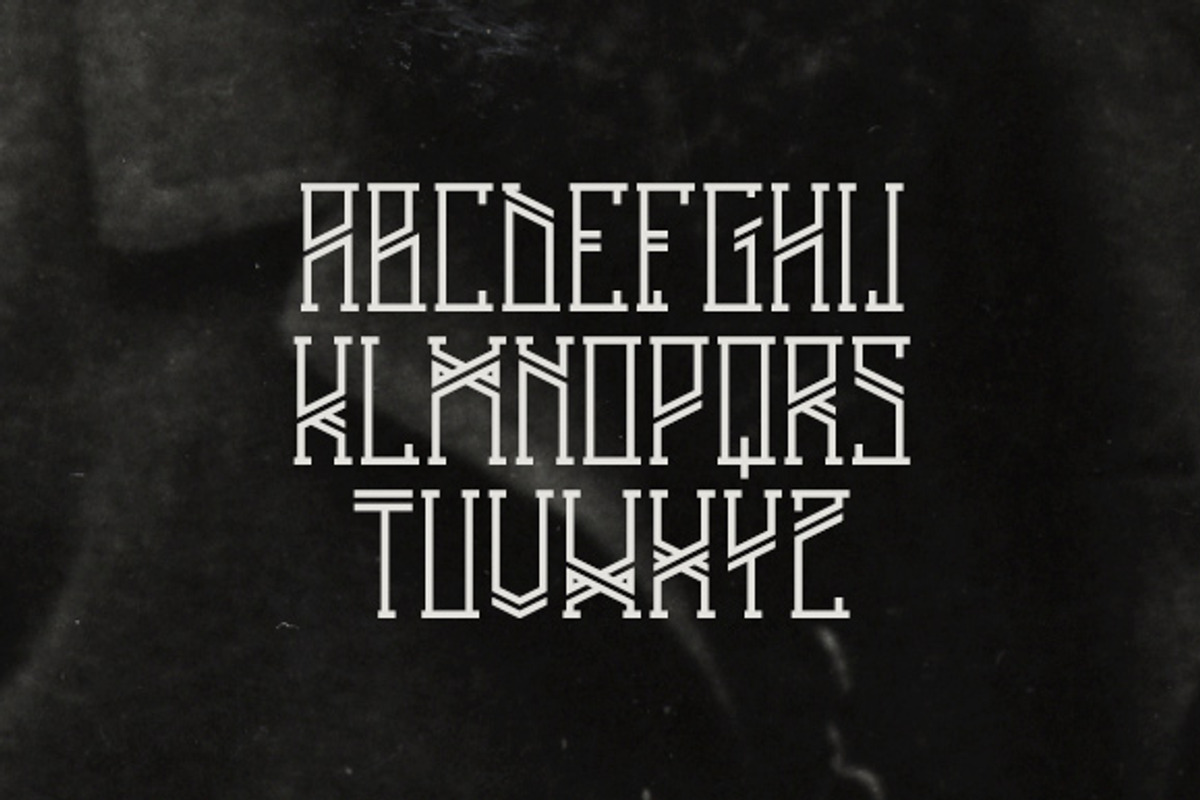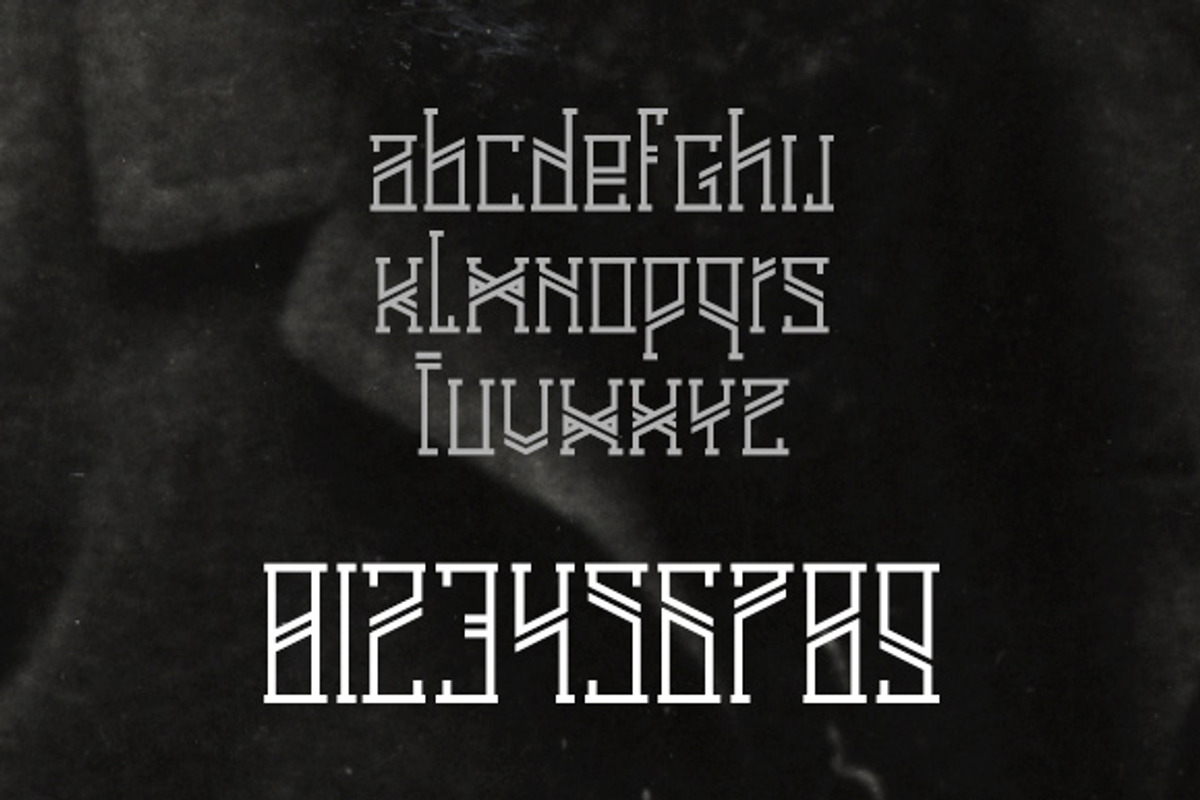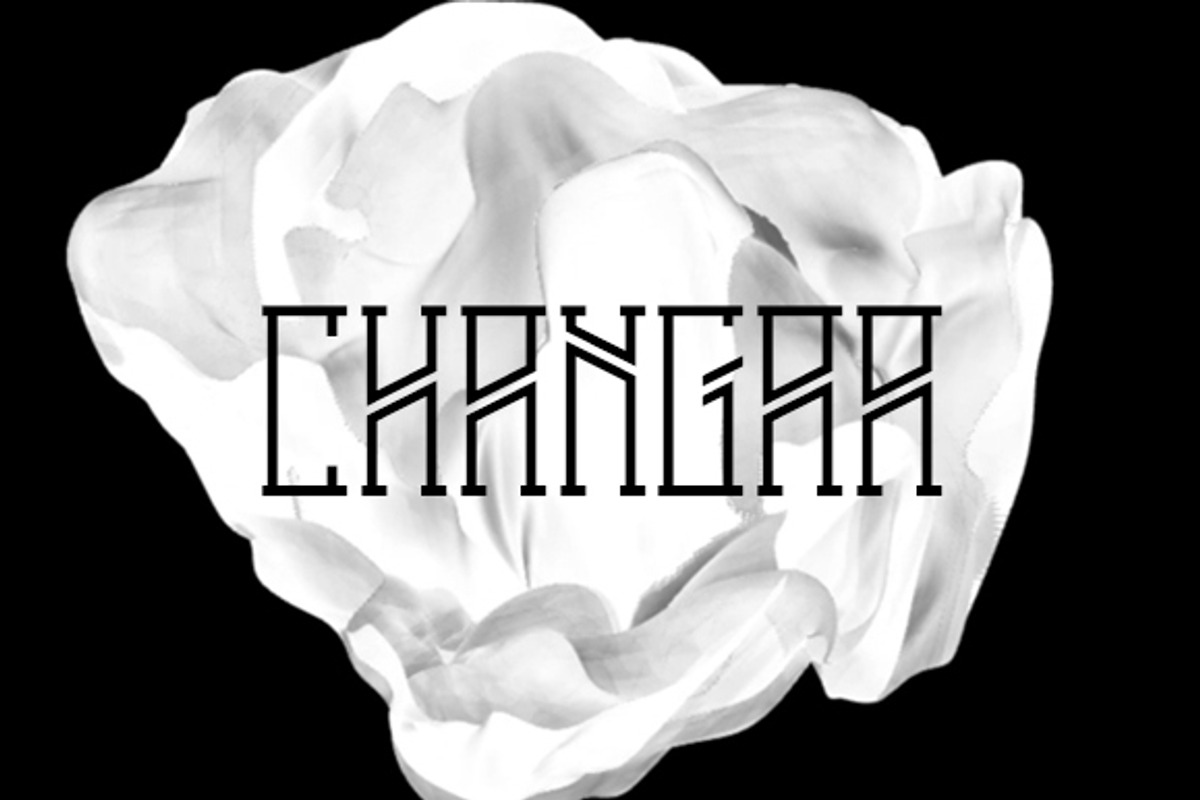
Changaa - font
Changaa - font by davidiscreative is a font selected for branding, posters, packaging, typography.
Why Changaa - font is worth a look
Changaa - font by davidiscreative fits naturally into Branding, posters, packaging, typography.